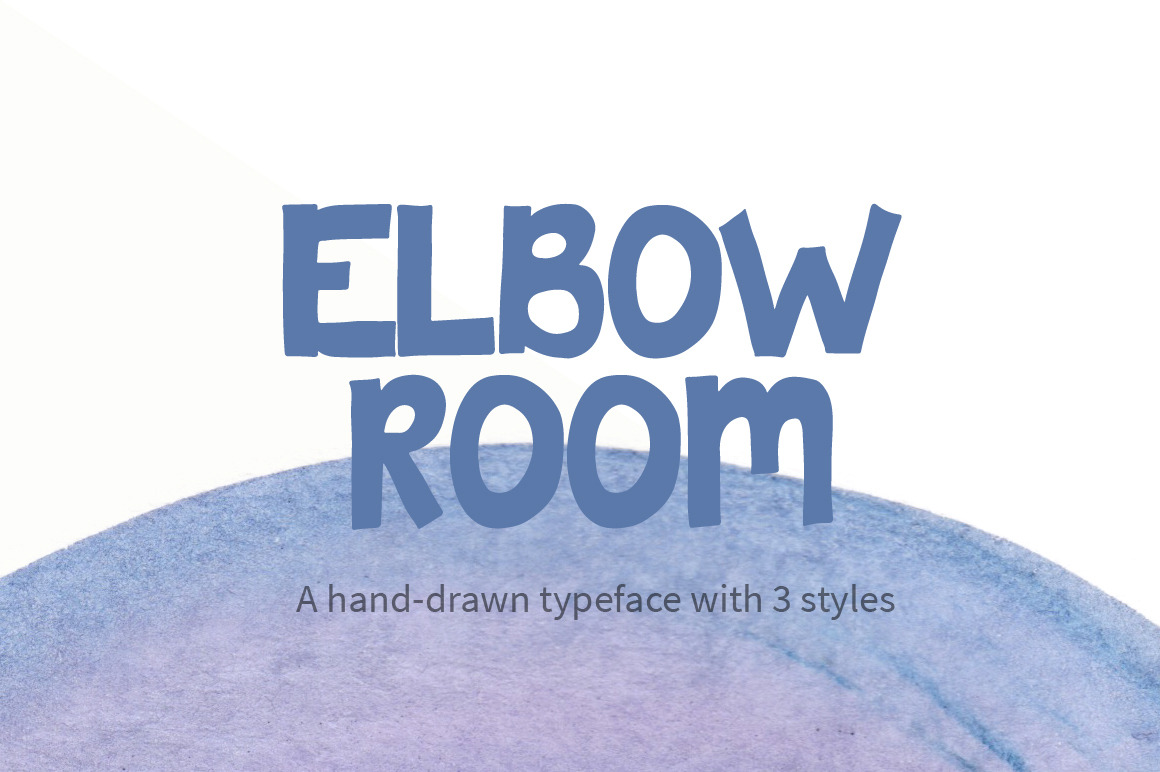
Elbow Room Font
The Elbow Room Font was named for my love affair with macaroni and cheese, as the glyphs are quite noodley and doodley. This mostly uppercase-font is a great way to add a hand drawn lettering touch to your designs, whether you use it on the web, on a printable greeting card, in a scrapbook, or elsewhere. It looks great in quotes and the three styles can be mixed together to create a unique look. Quirky Elbow Room lives happily in a setting for young and old alike.
The font was carefully created by hand using ink and features a comprehensive set of glyphs including uppercase, lowercase, numeric, and symbols. The font was carefully kerned and the in-browser preview doesn't do it justice; make sure to zoom in and view the preview images for the true spacing and detail.